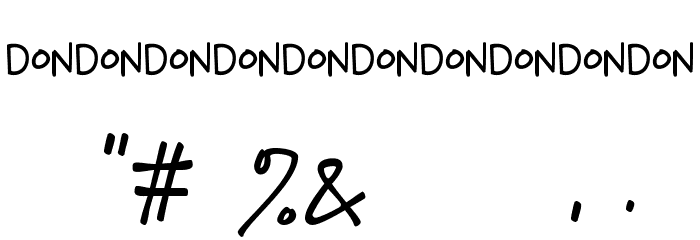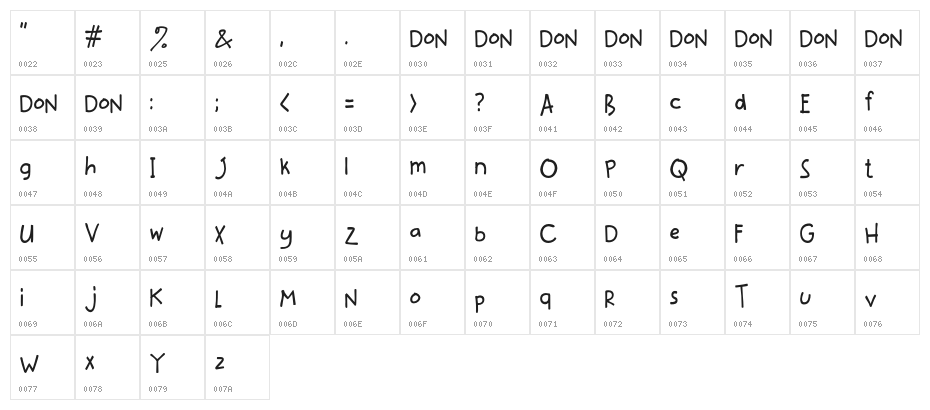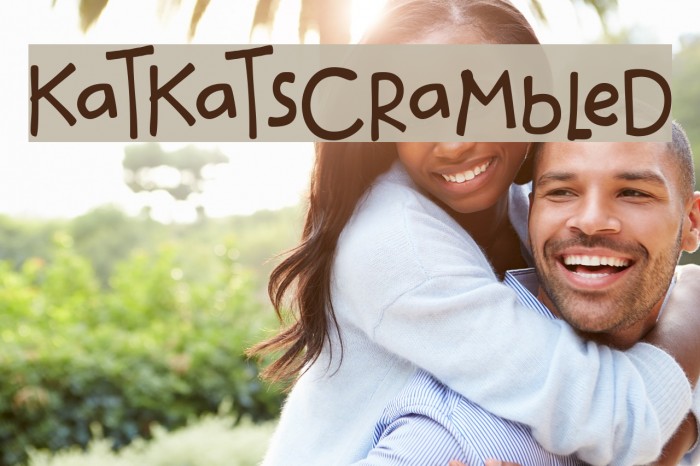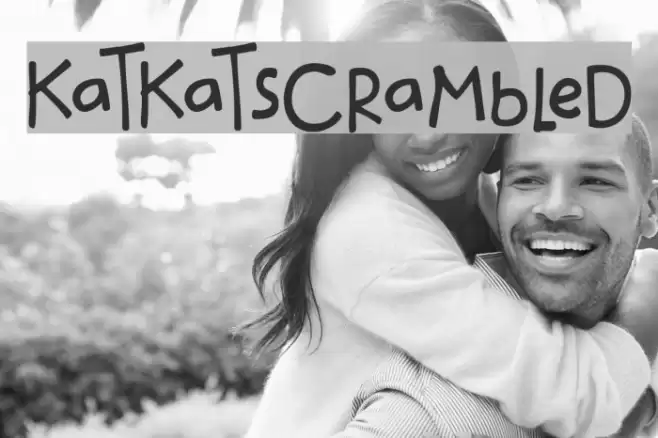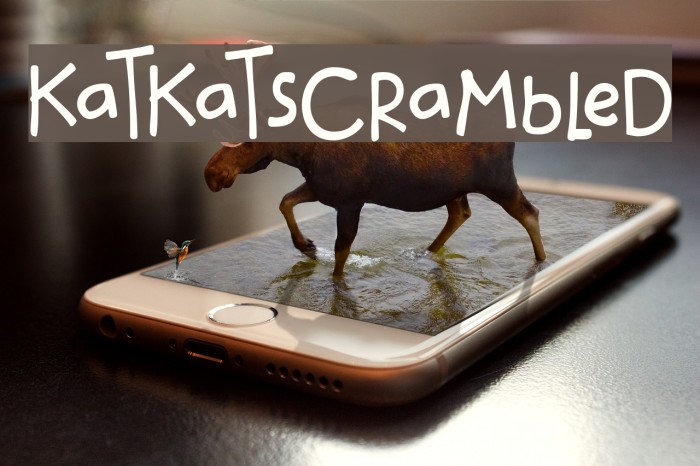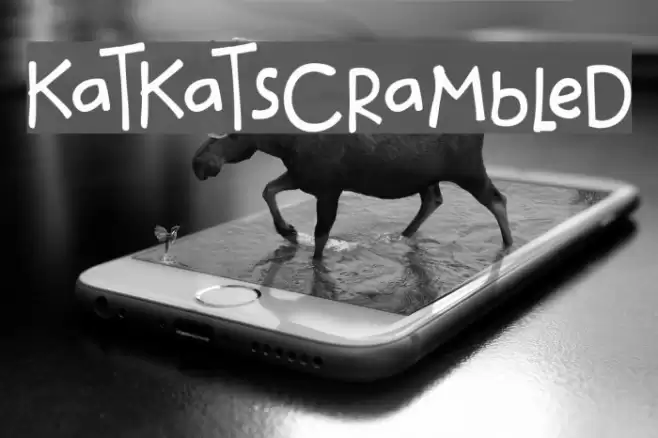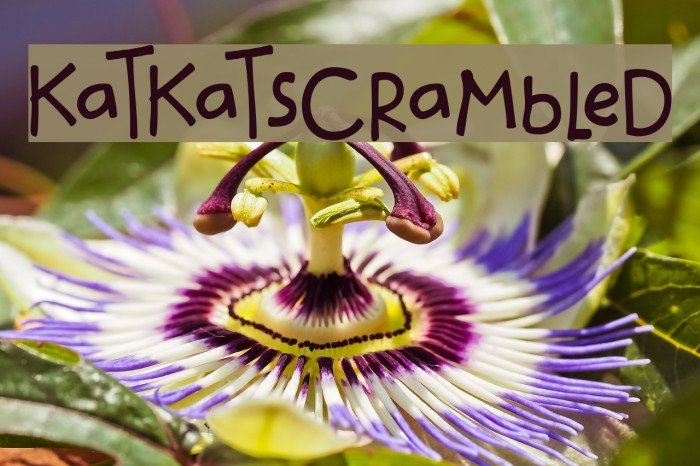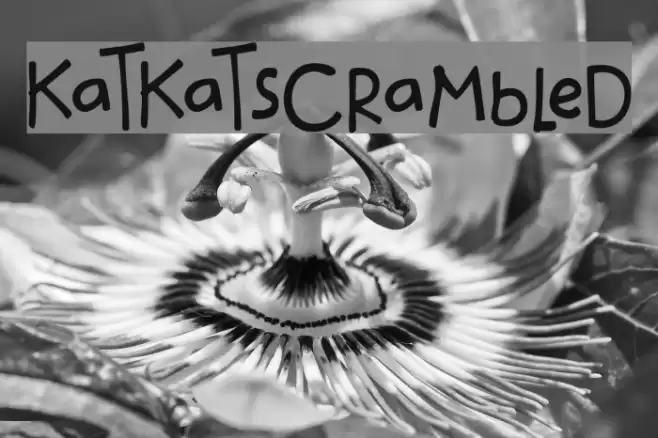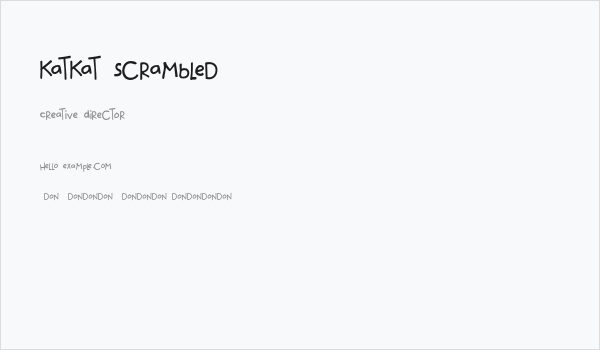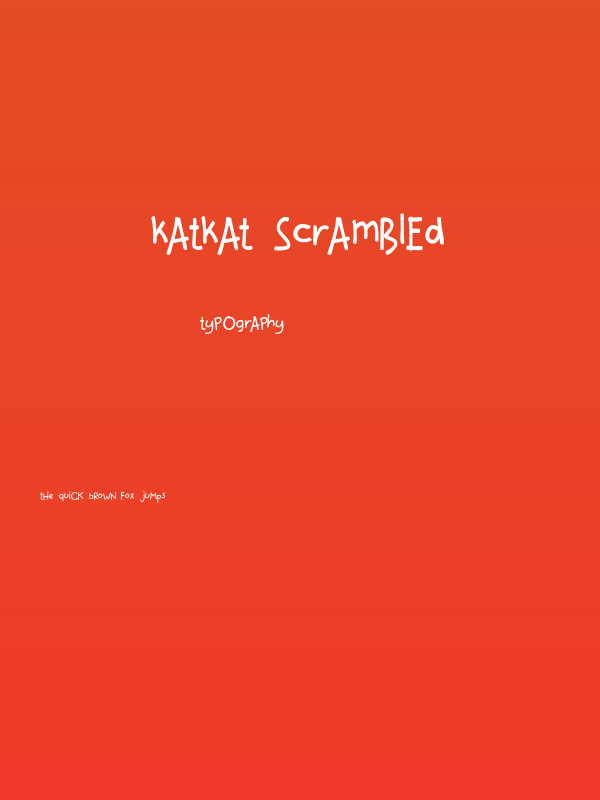
katkat_scrambled Font
katkat_scrambled Description
This playful and quirky font features a handwritten style with a casual, informal appearance. The characters are slightly irregular, adding a whimsical touch to the overall design. The uppercase and lowercase letters are distinct, with a noticeable difference in size and style. The numbers and special characters maintain the same playful aesthetic, making the font versatile for creative projects. The strokes are consistent in thickness, providing a balanced look. This font is ideal for projects that require a fun and approachable feel, such as children's books, greeting cards, or playful branding.
| Overall Style | Playful, Casual |
| Proposed Projects | Children's books, greeting cards, playful branding, casual invitations. |